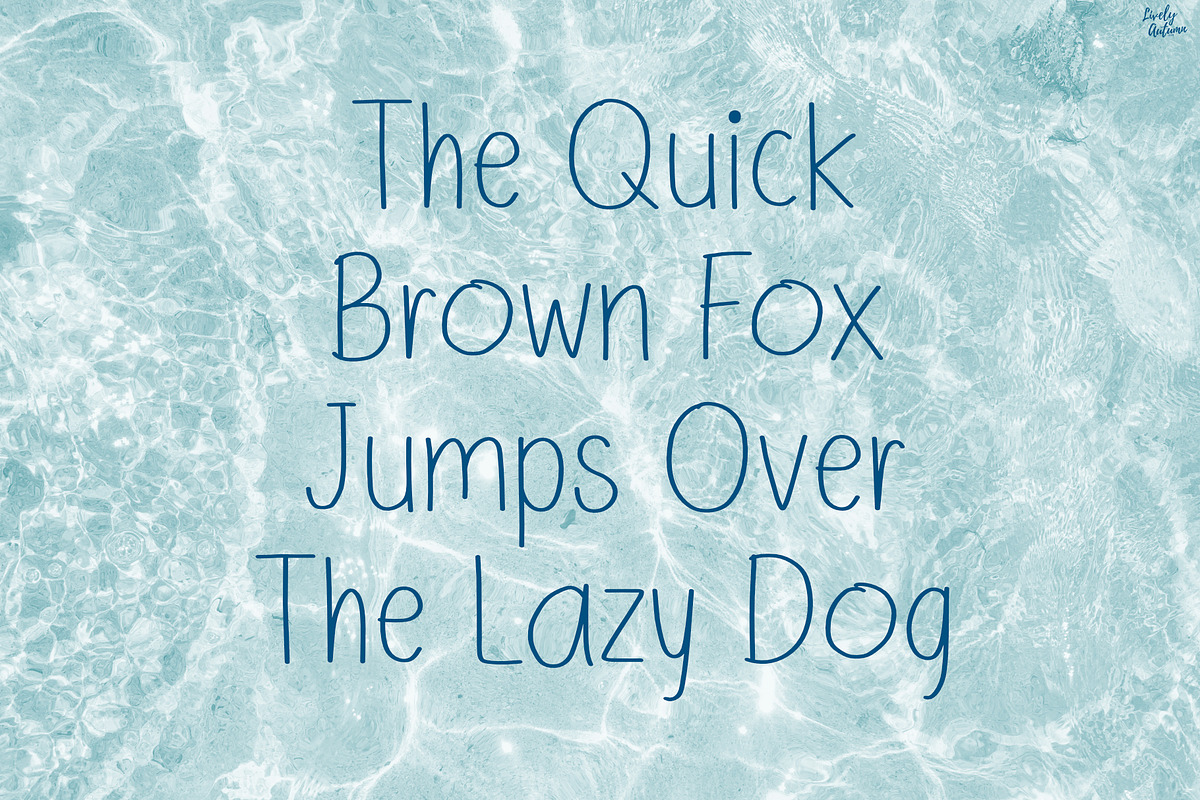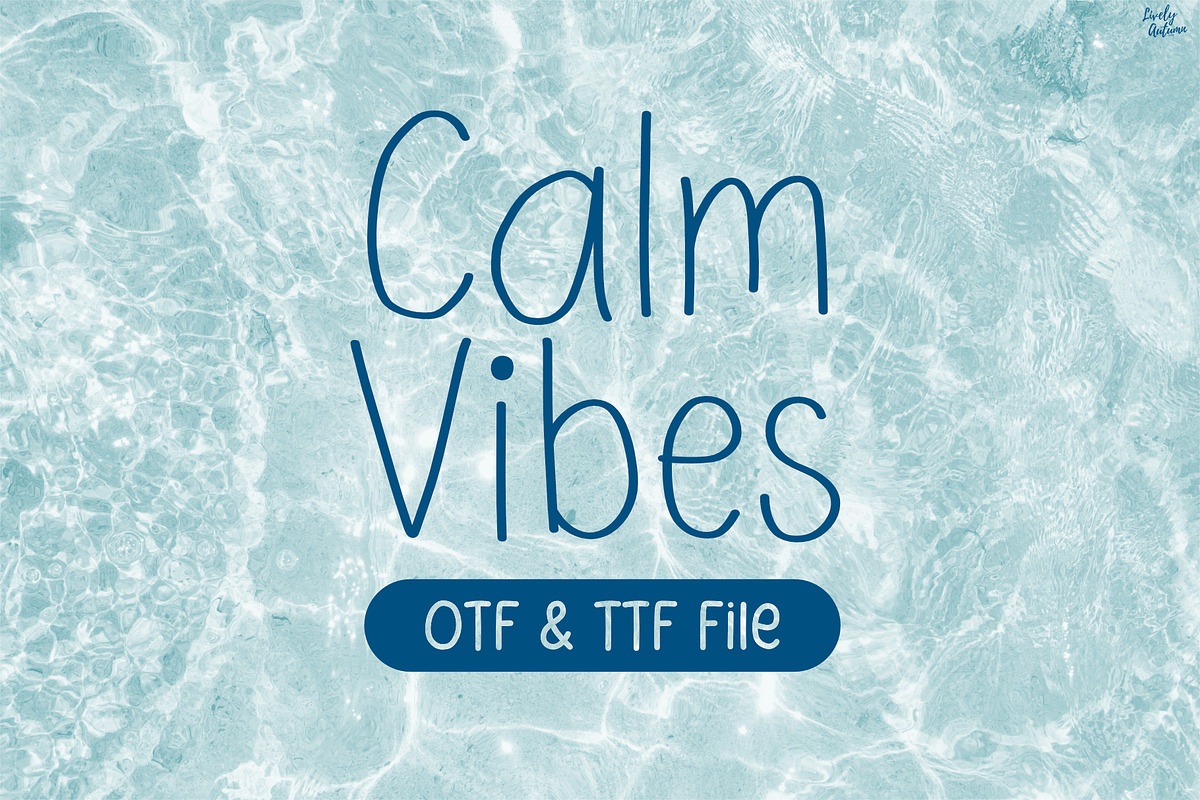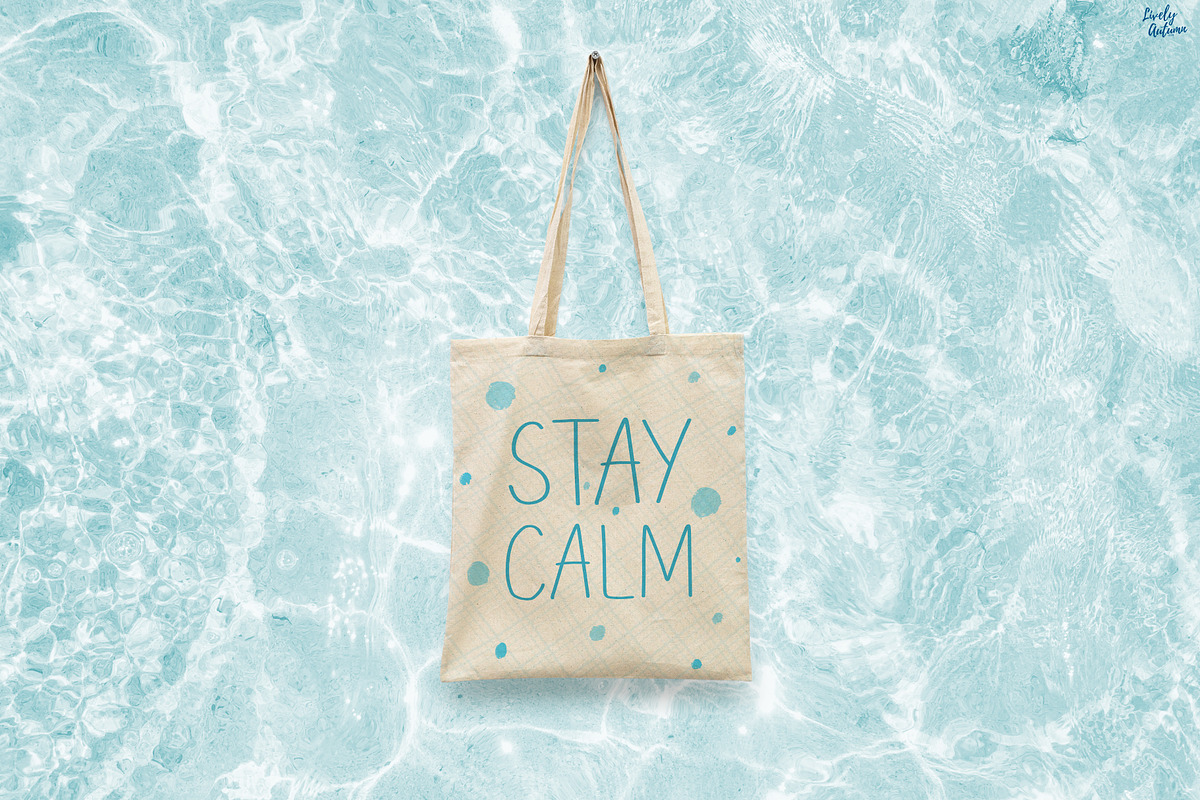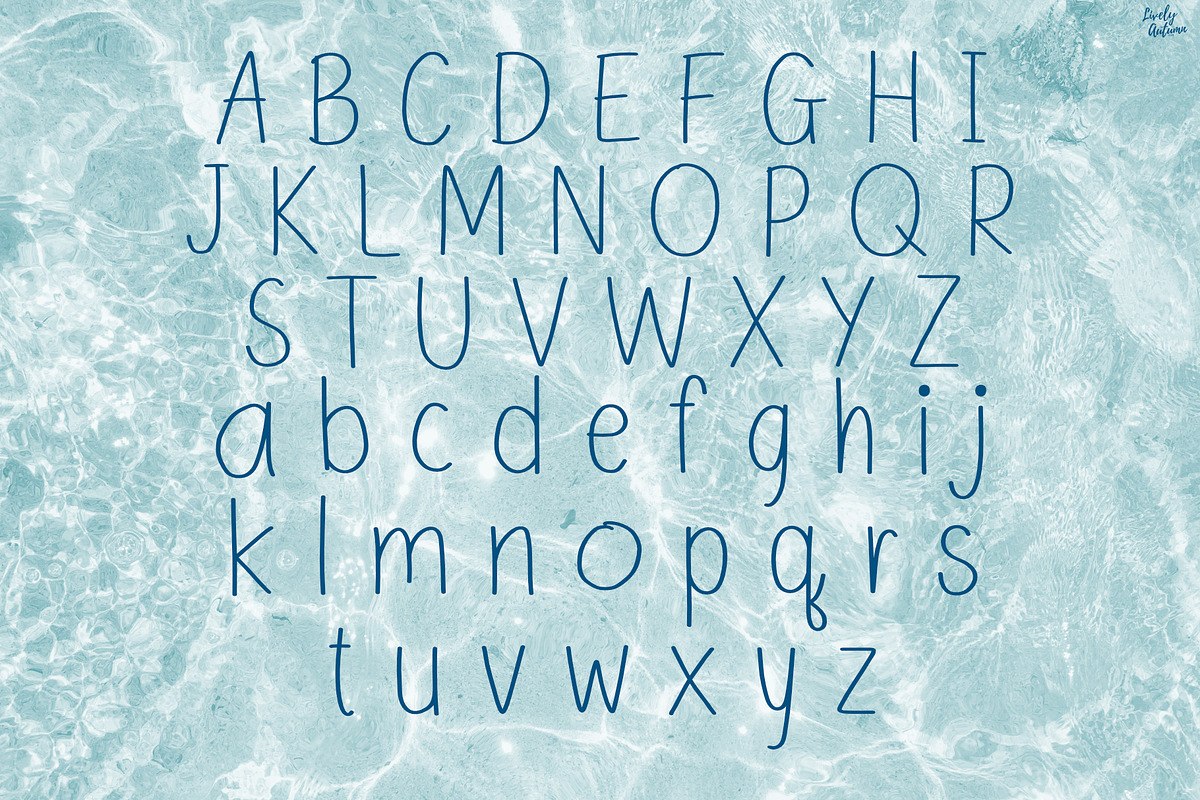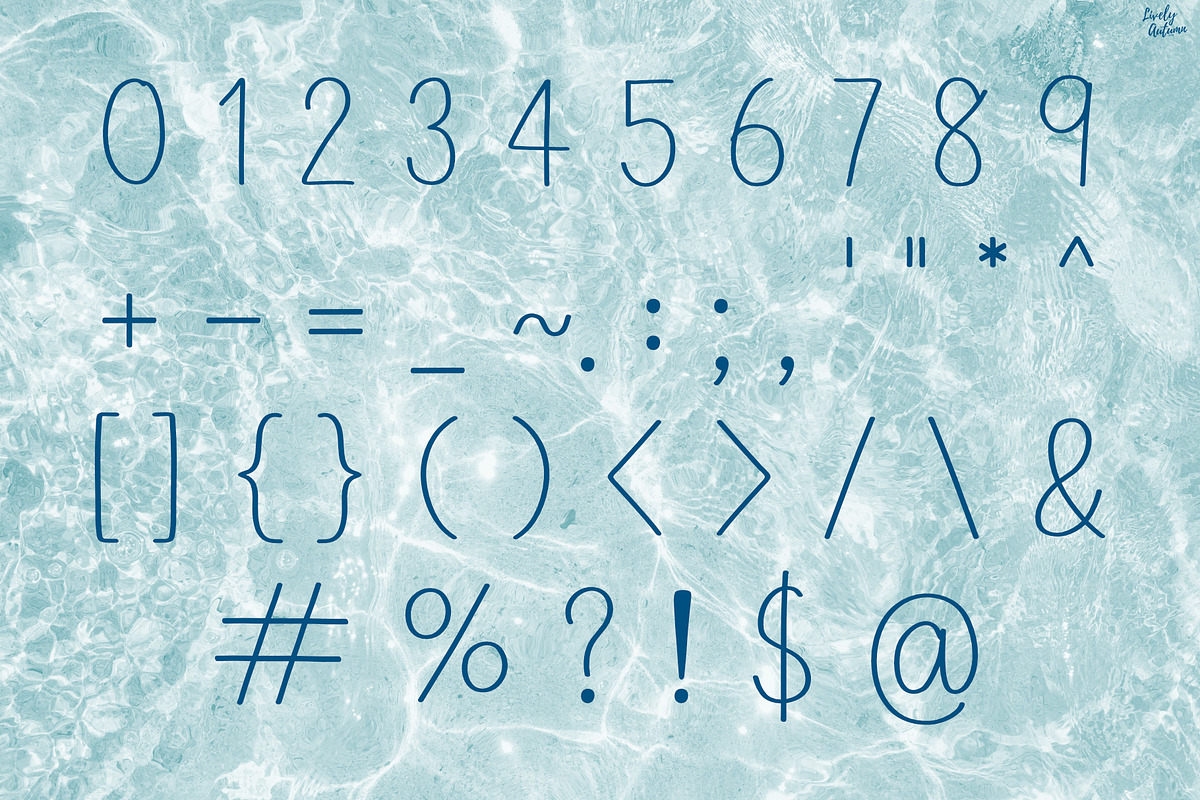
Calm Vibes | Sans serif Handwritten
Calm Vibes is a simple natural handwriting sans serif font. Perfect for your personal projects and various projects. From invitations to posters, social media graphics, journals, stickers and much more.
- Font includes: uppercase, lowercase, numbers, and punctuation